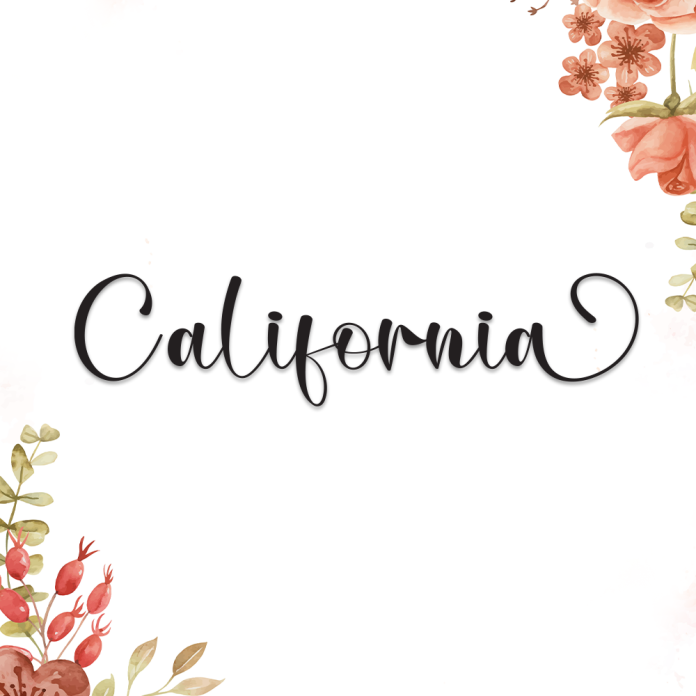
California is a smooth and stylish handwriting font inspired by the relaxed vibes of the West Coast. With its flowing strokes and effortless elegance, this font captures the spirit of freedom, sunshine, and creative expression.
Perfect for branding, social media, travel blogs, lifestyle content, and handwritten quotes, California adds a personal and modern touch to every design.
Relaxed and elegant handwritten style
Smooth, flowing letterforms with a modern flair
Great for logos, blog headers, packaging, and quotes
Bring the sunshine to your designs with California, the handwriting font that’s effortlessly cool and creatively bold.